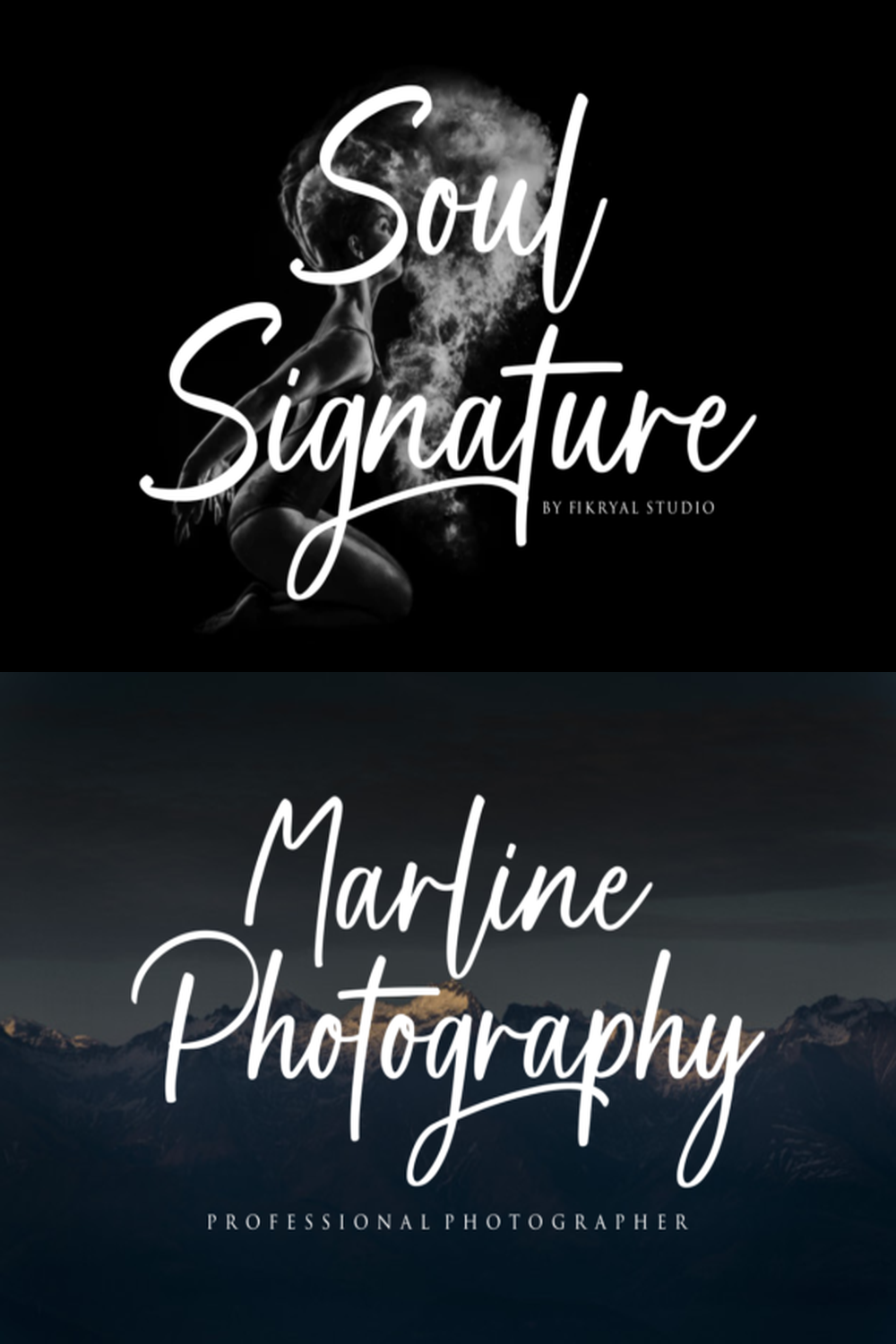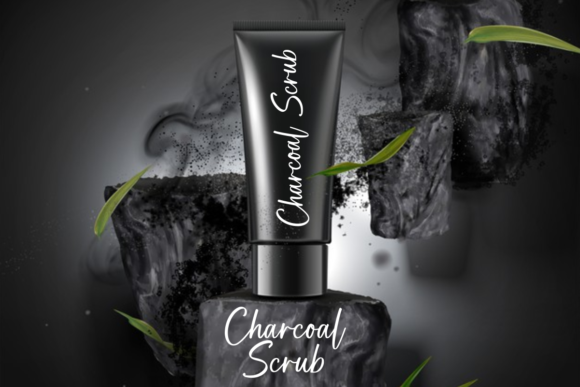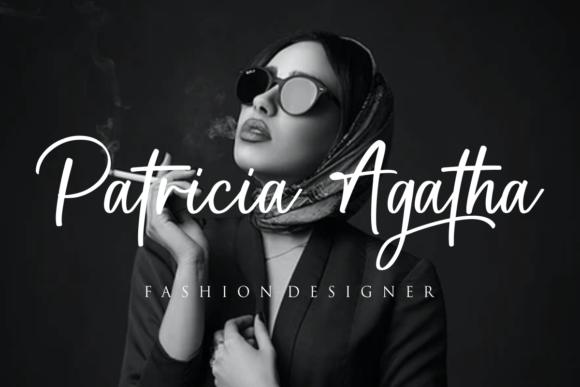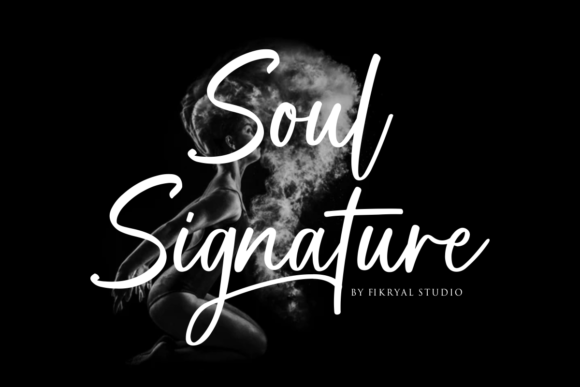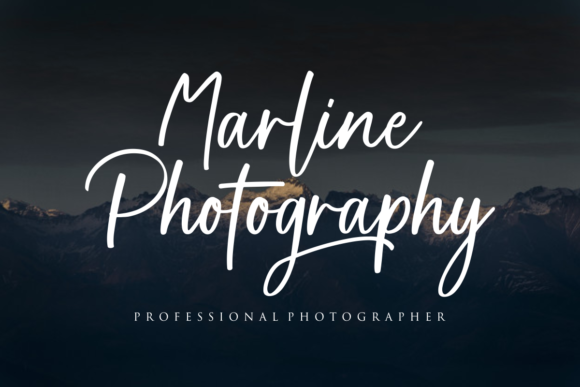
Soul Signature Font
About the Soul Signature Font
Unleash your creativity with Soul Signature Font, a versatile font perfect for a wide range of applications. Soul Signature is a delicate and elegant handwritten font. Its distinct letters make this font a masterpiece. Fall in love with its incredibly versatile style and use it to create spectacular designs!
Soul Signature Font Usage Examples